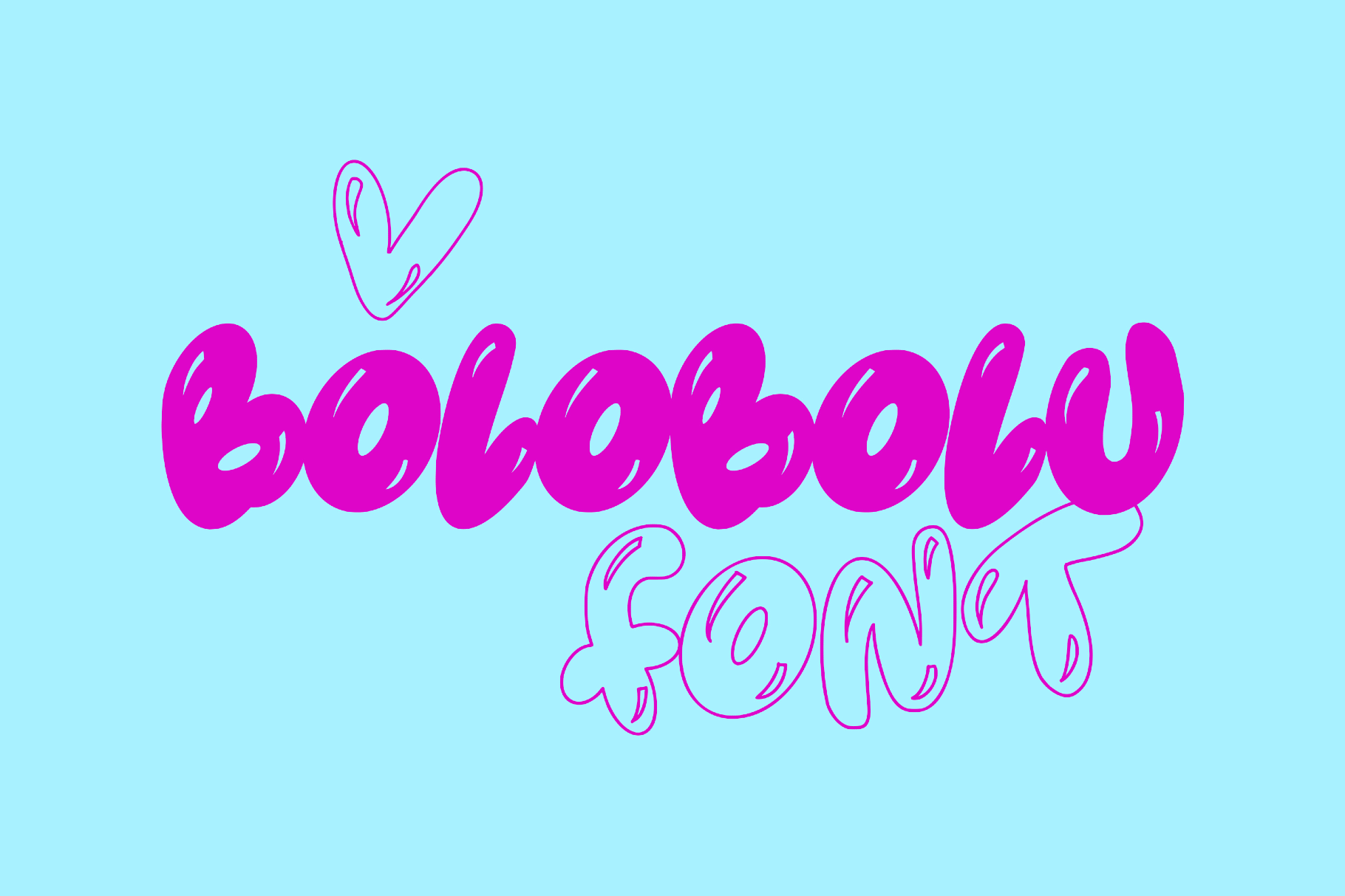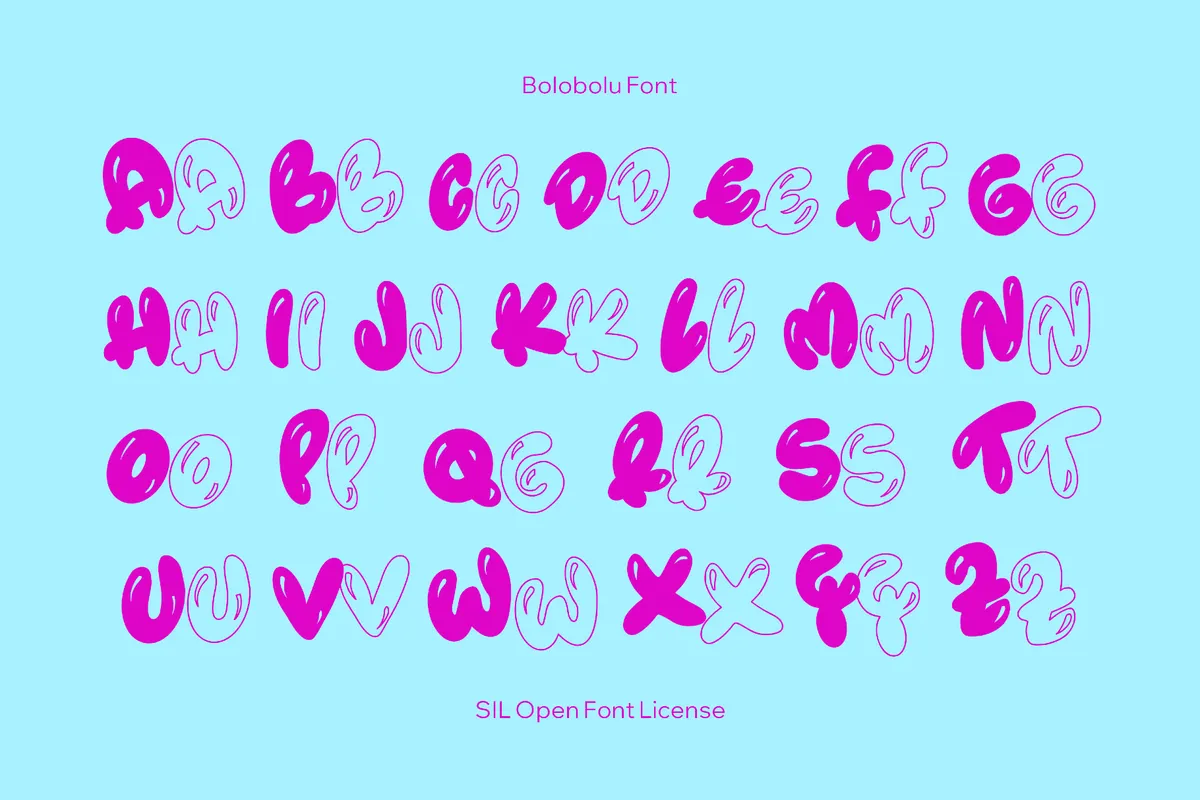
Bolobolu Font
Bolobolu is a puffy bubble display with a balloon-like silhouette. It echoes hand-painted shop signs and cheerful children’s book lettering from late 20th-century print culture. The chunky and playful shapes with a soft 3D attitude make this font ready for candy packaging, kids’ graphics, or graffiti-style titles. It also works well for posters, logos, snack and drink packaging, party invitations, educational materials, stickers, apparel, short headlines, social media graphics, and event promos
Included: two uppercase sets: solid caps and matching outline caps.